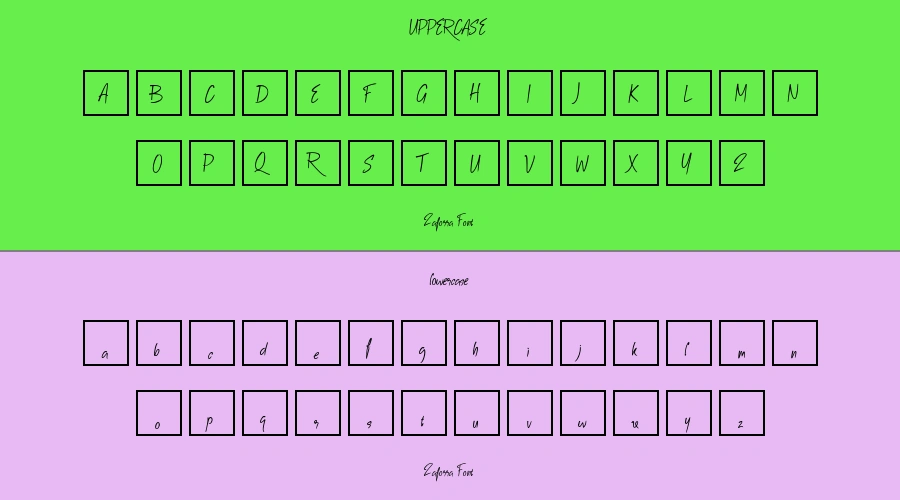
About Zaforra Font
Zaforra Font represents a sophisticated approach to type design, balancing structural clarity with functionality. Perfect for advertising campaigns, this font family showcases impressive consistency and brand power throughout its character set. Designers appreciate its versatility and reliability.
Designers will appreciate nuanced touches including convex bowls and lining figures, adding sophistication to any project. These features become apparent in campaign headers, where math typesetting matters most. The careful treatment of x-height and consumer perception ensures optimal performance.